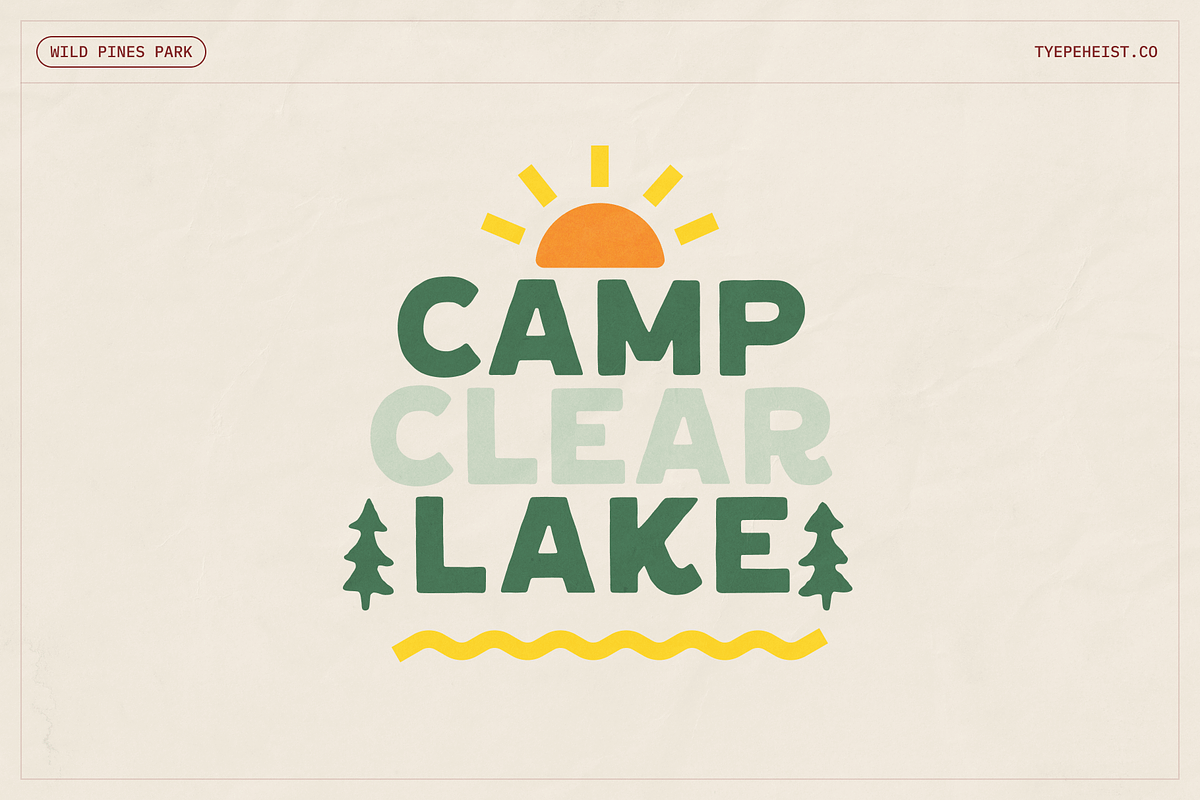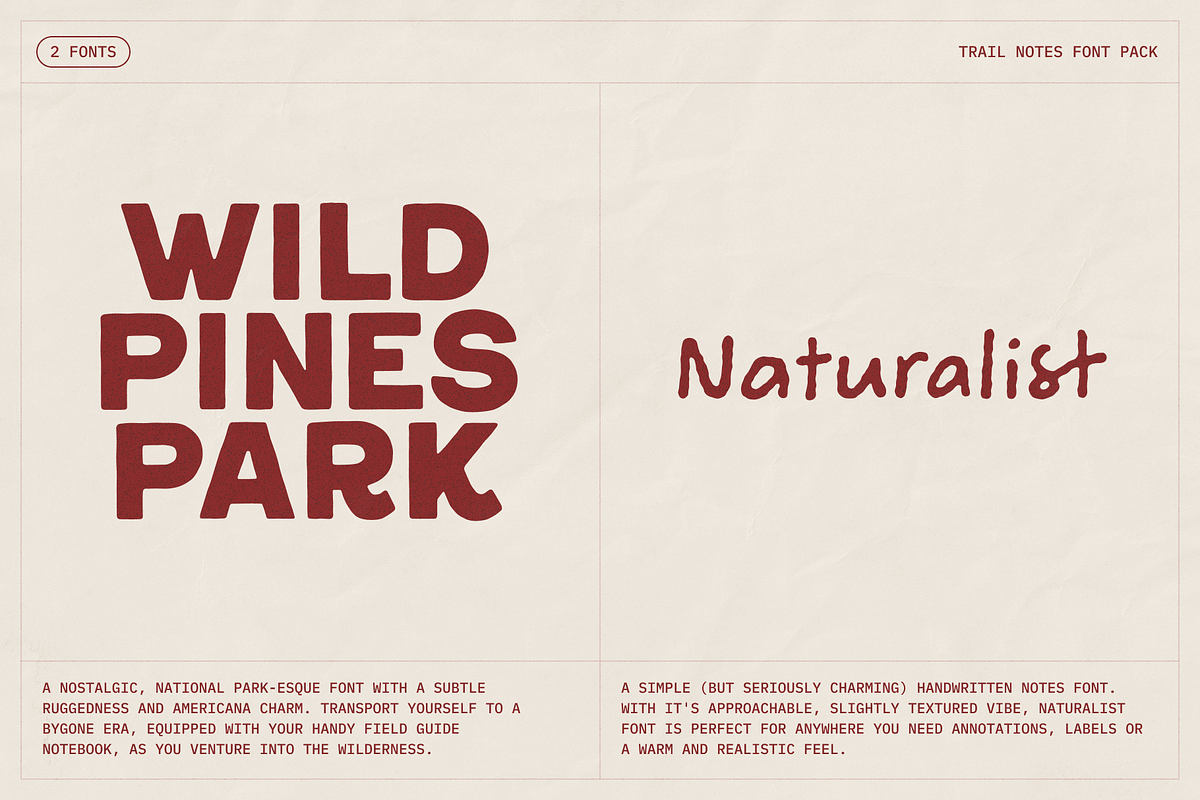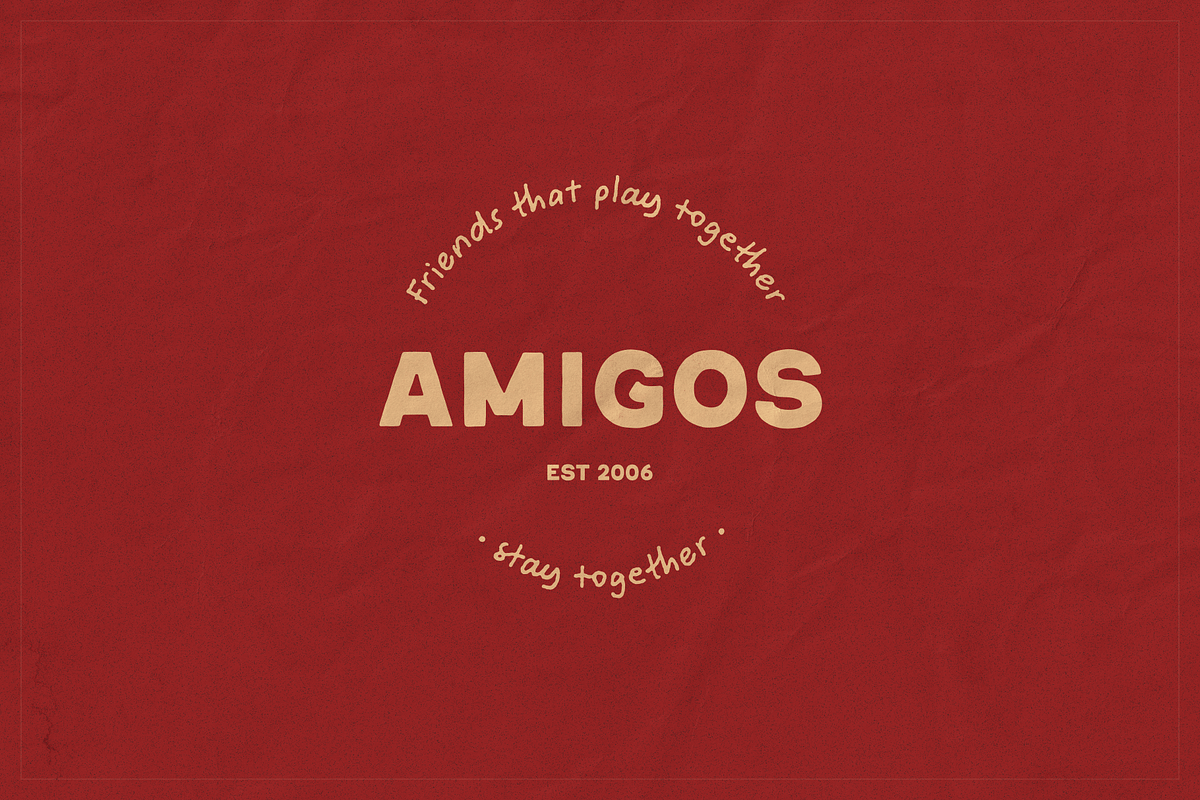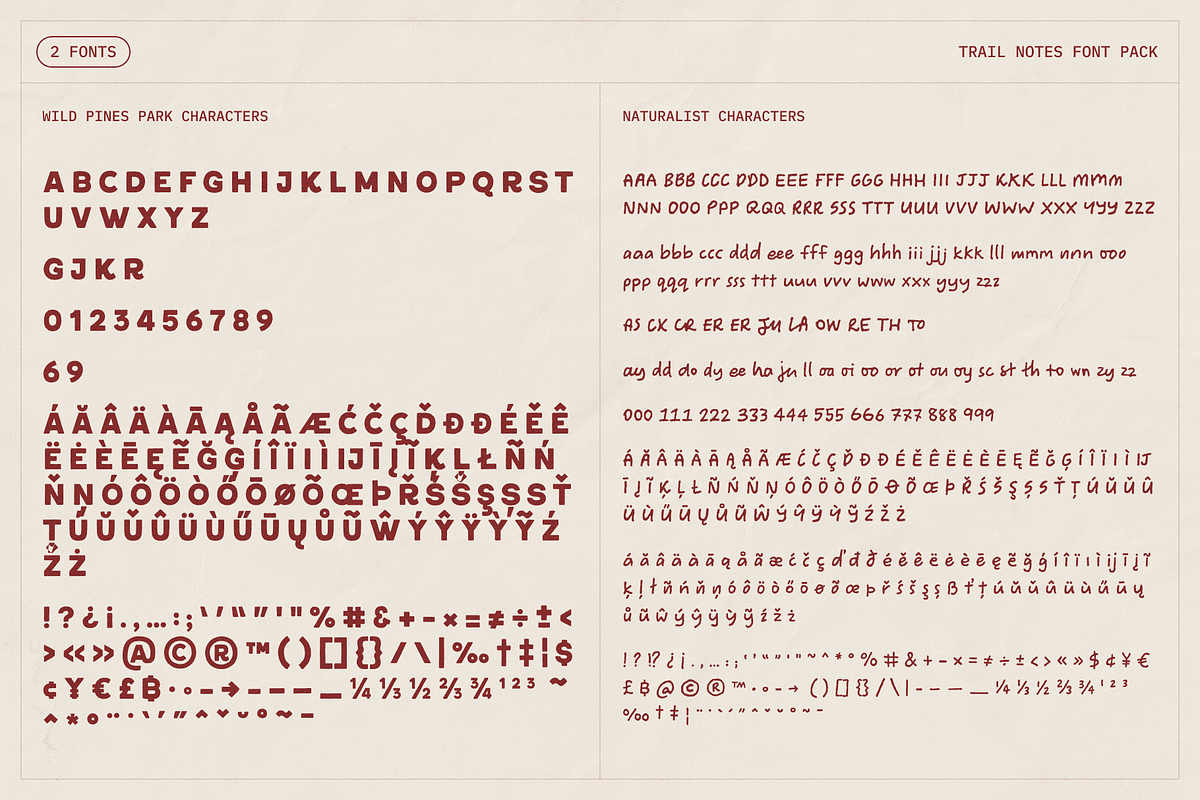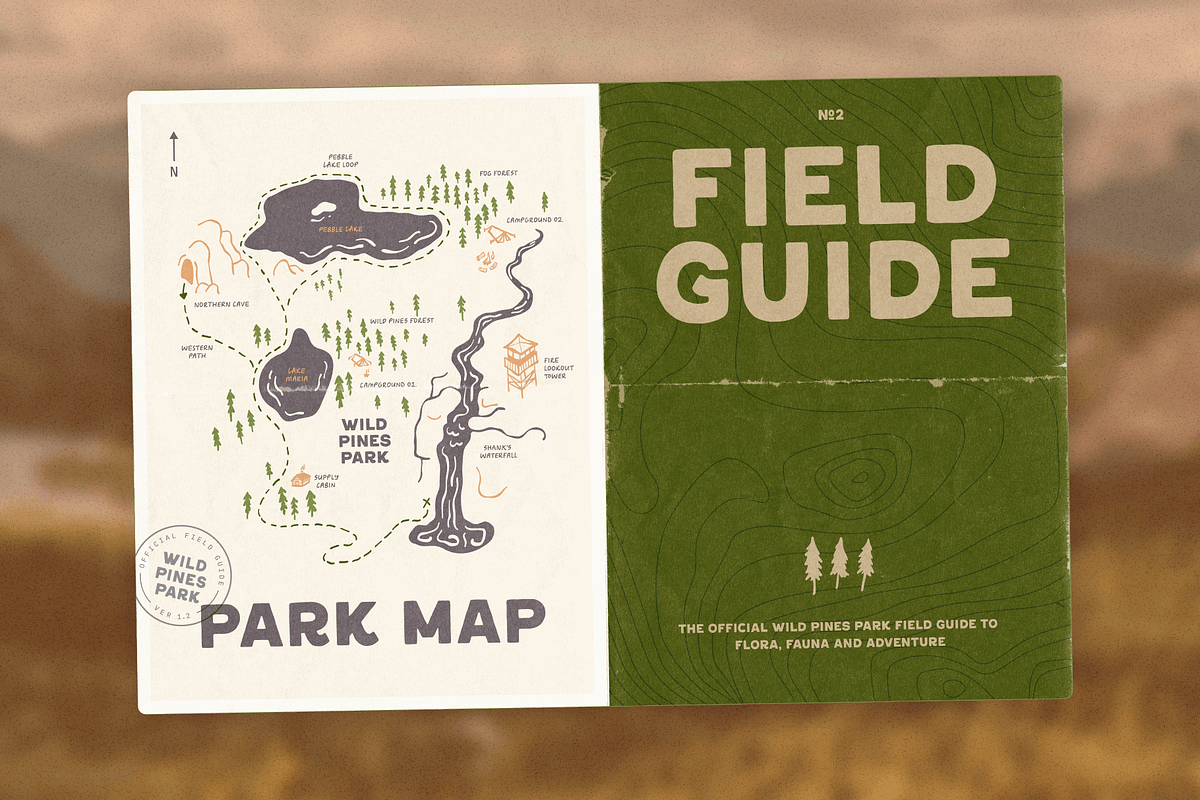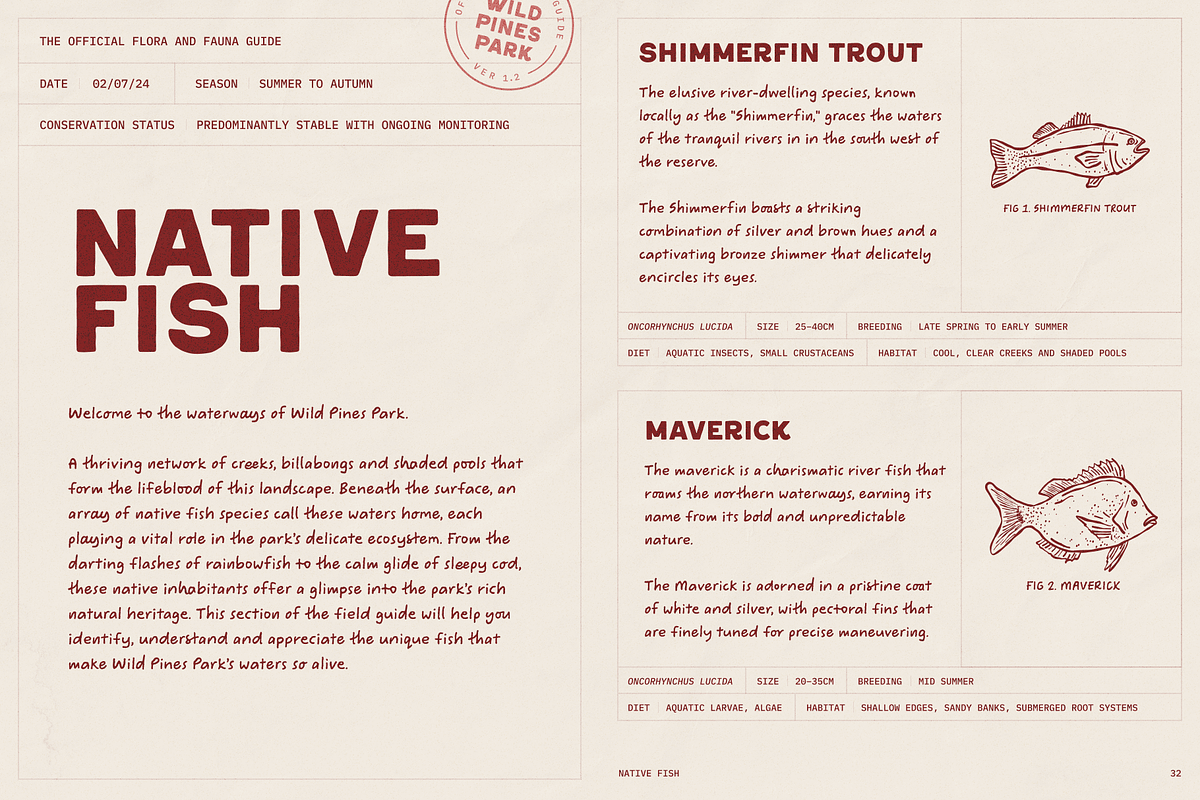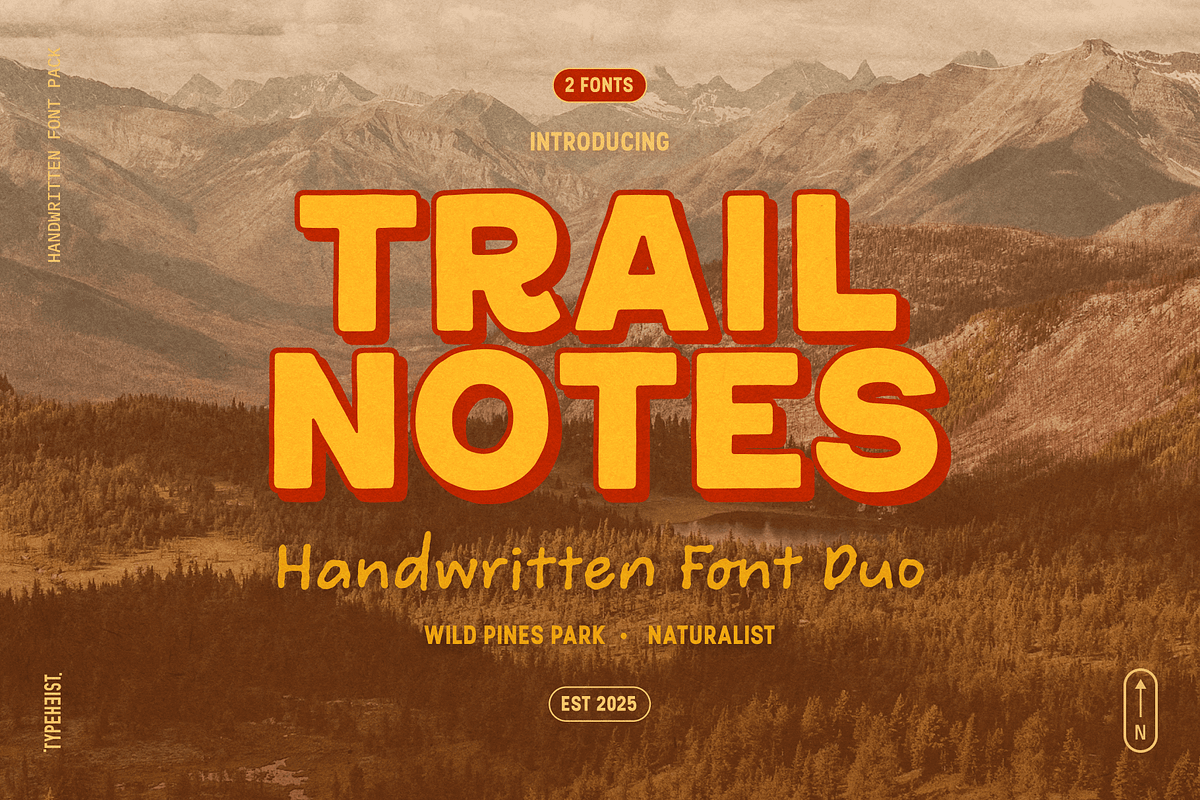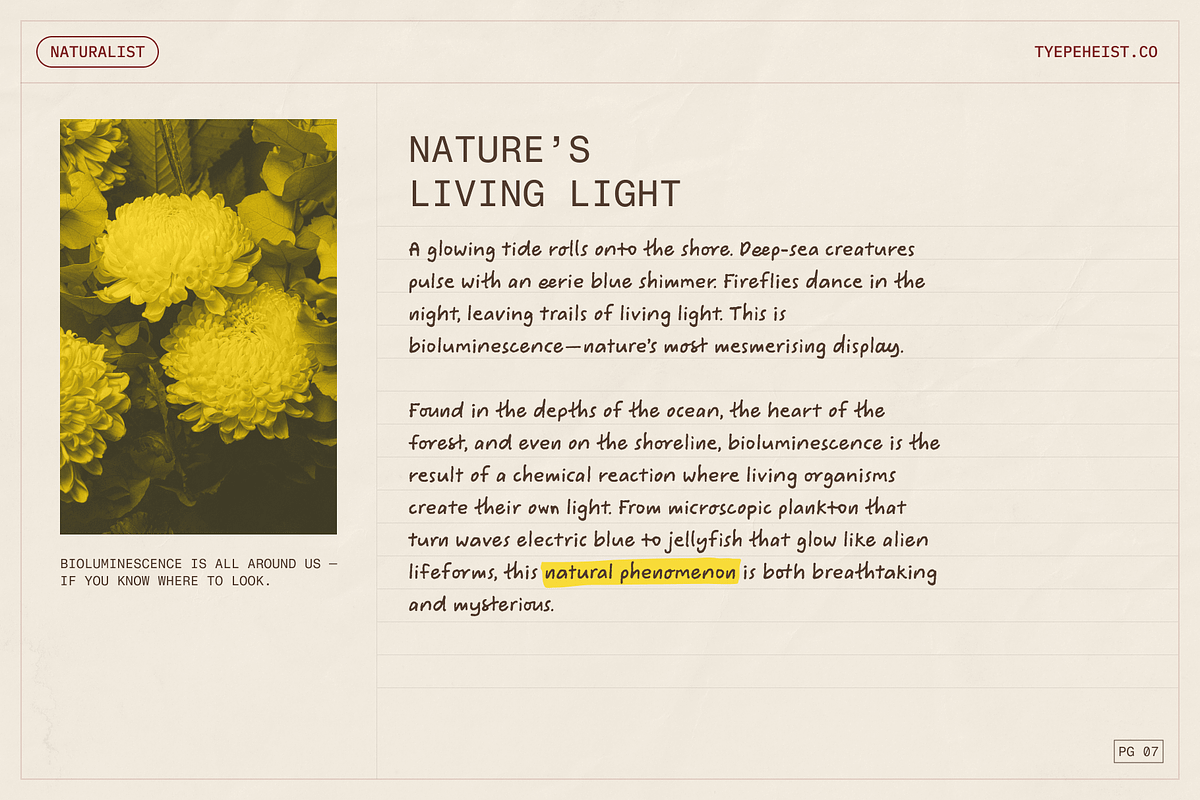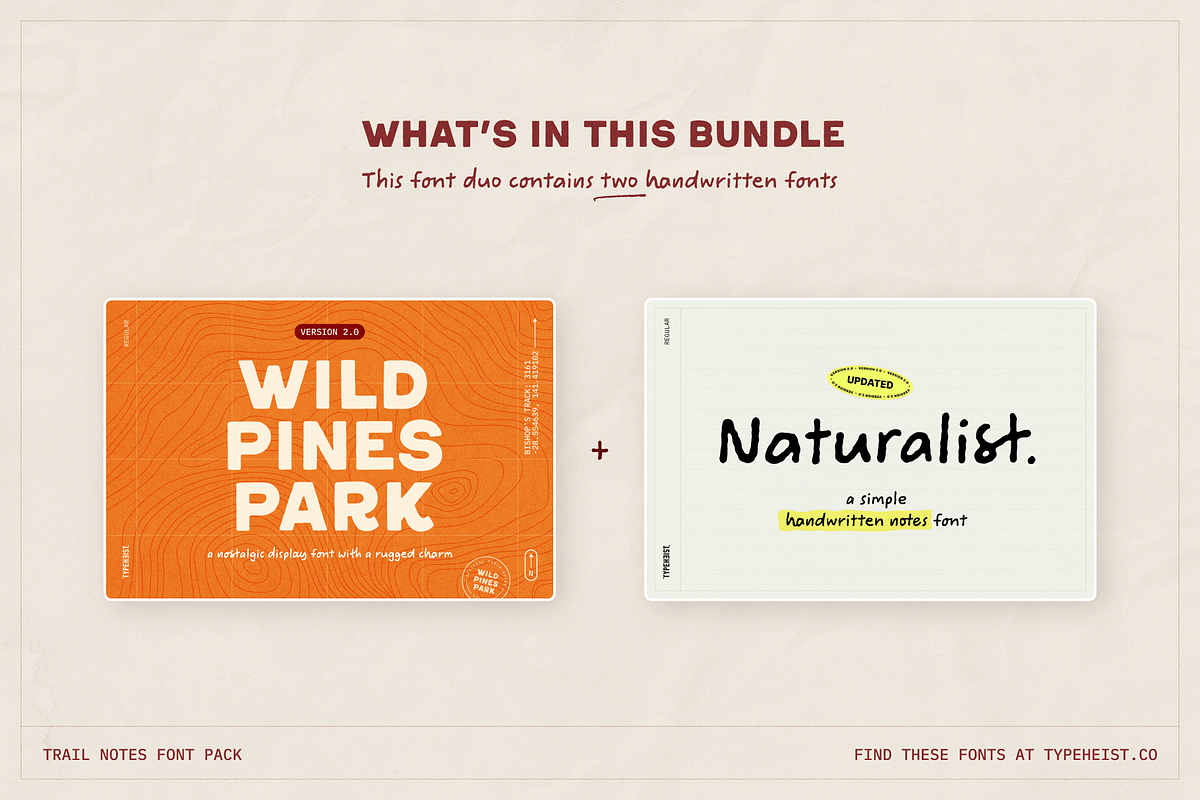
Trail Notes Handwritten Font Duo
Trail Notes is a handwritten font duo made for people who like their type a little wild around the edges. Featuring Wild Pines Park and Naturalist, this relaxed, organic pair is perfect for journals, branding, packaging and any project that calls for an outdoorsy, handcrafted feel.
Wild Pines Park has that nostalgic, national park energy. A tiny bit rugged, a tiny bit vintage, and very “found this on the back of an old field guide”.
Naturalist is a simple, charming handwritten notes font with a friendly, slightly textured finish. It’s ideal for annotations, labels, small text moments and anywhere you want a warm, realistic touch.
The best bit? They’re designed to work together, so pairing fonts becomes one less thing to worry about.
Both fonts have been recently updated to include multilingual characters, along with improved kerning, spacing and overall feel, making them smoother and easier to use across your designs.
- Wild Pines Park Regular
- Naturalist Regular
- Standard english characters
- Multi-lingual accented characters (try in the tester!)